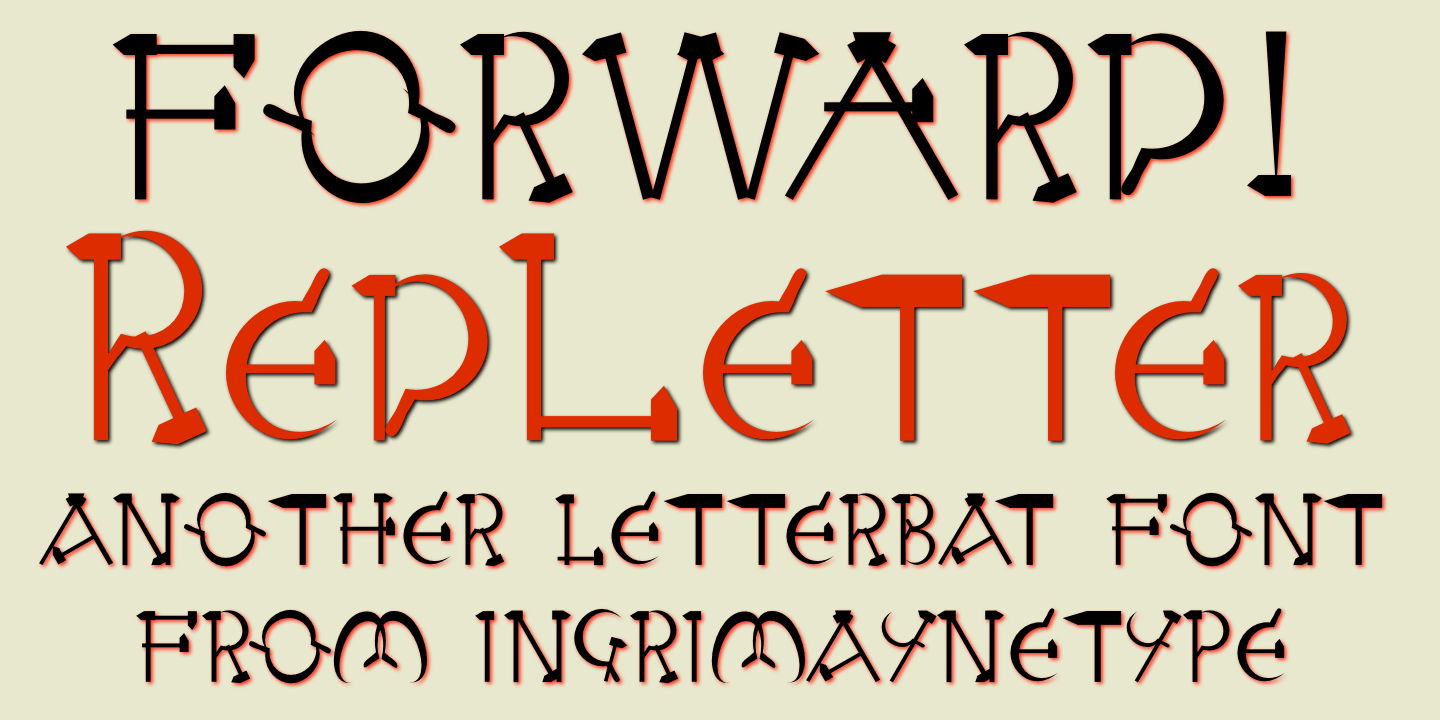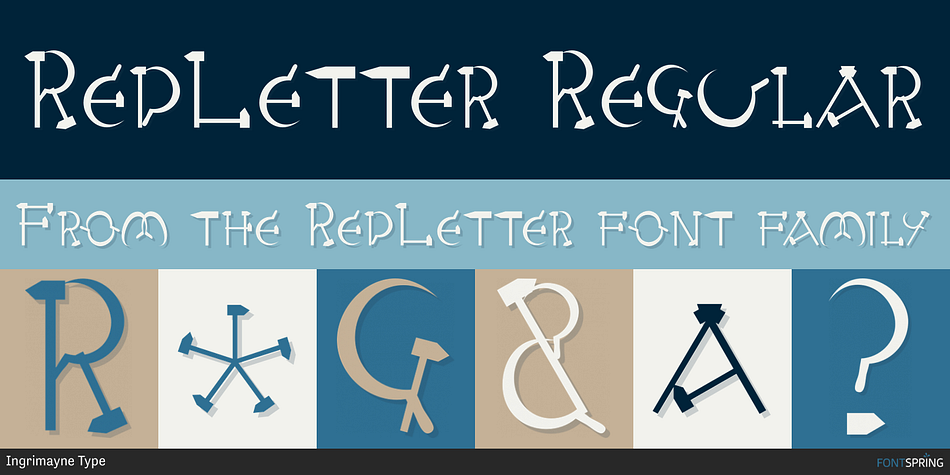
RedLetter Regular
Designed by Robert Schenk, RedLetter is a novelty font published by Ingrimayne Type.
In late 1988 or early 1989 I noticed that the circular form of the sickle and the linear form of the hammer could be used to form all the letters of the alphabet. In an effort to sell other typefaces, I released the result as a promotional typeface, first in Type 3 format as Stalingrad, and later in Type 1 format as RedLetter. This version has been revised.